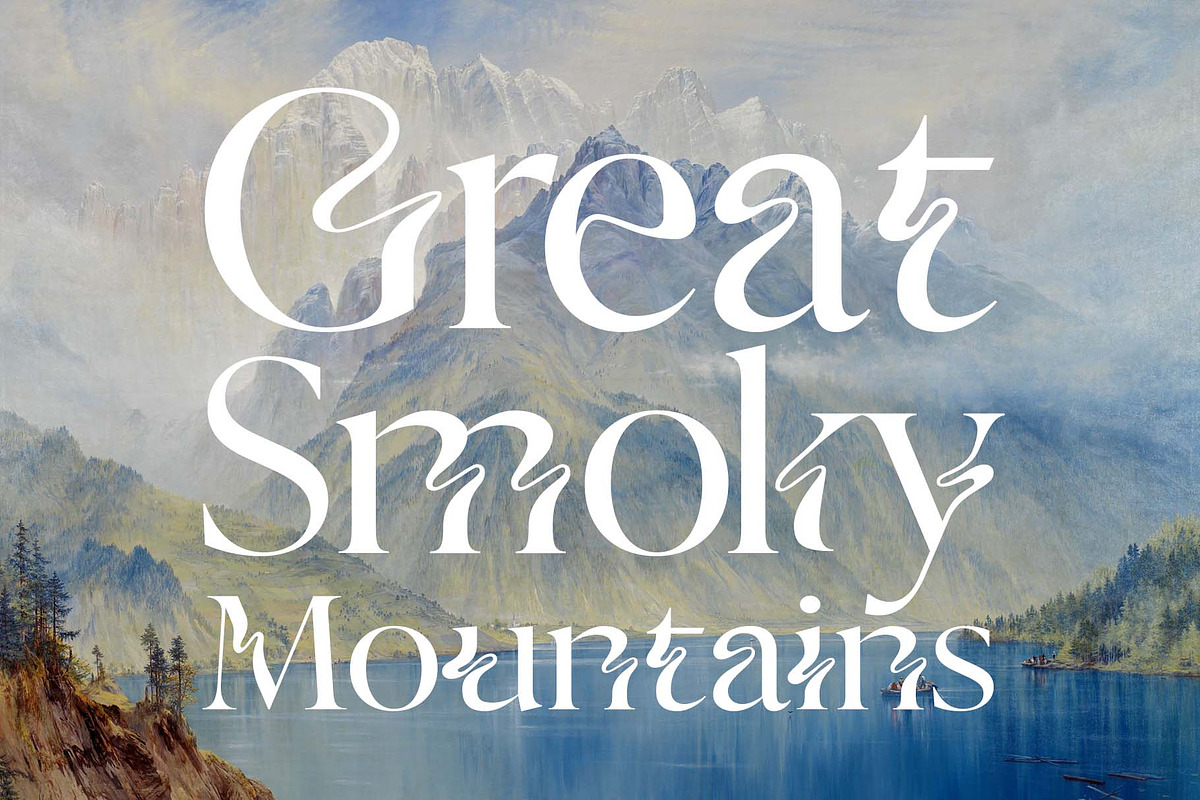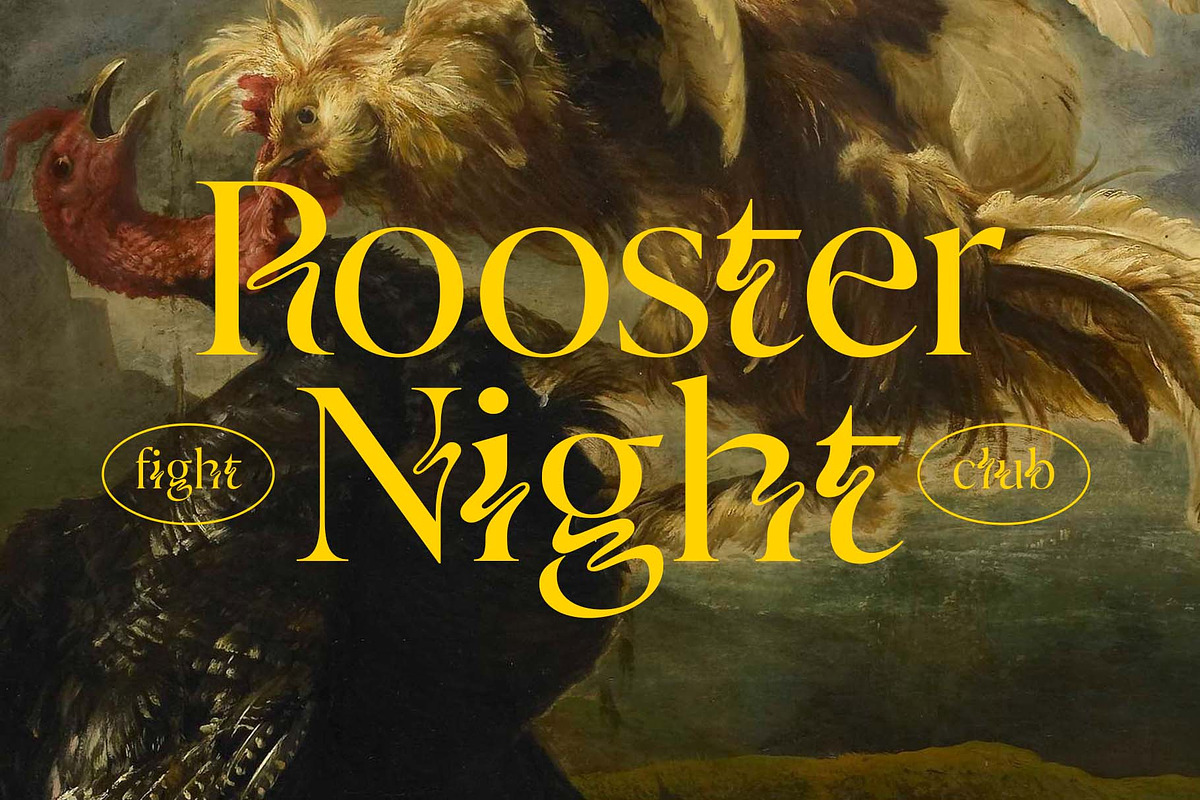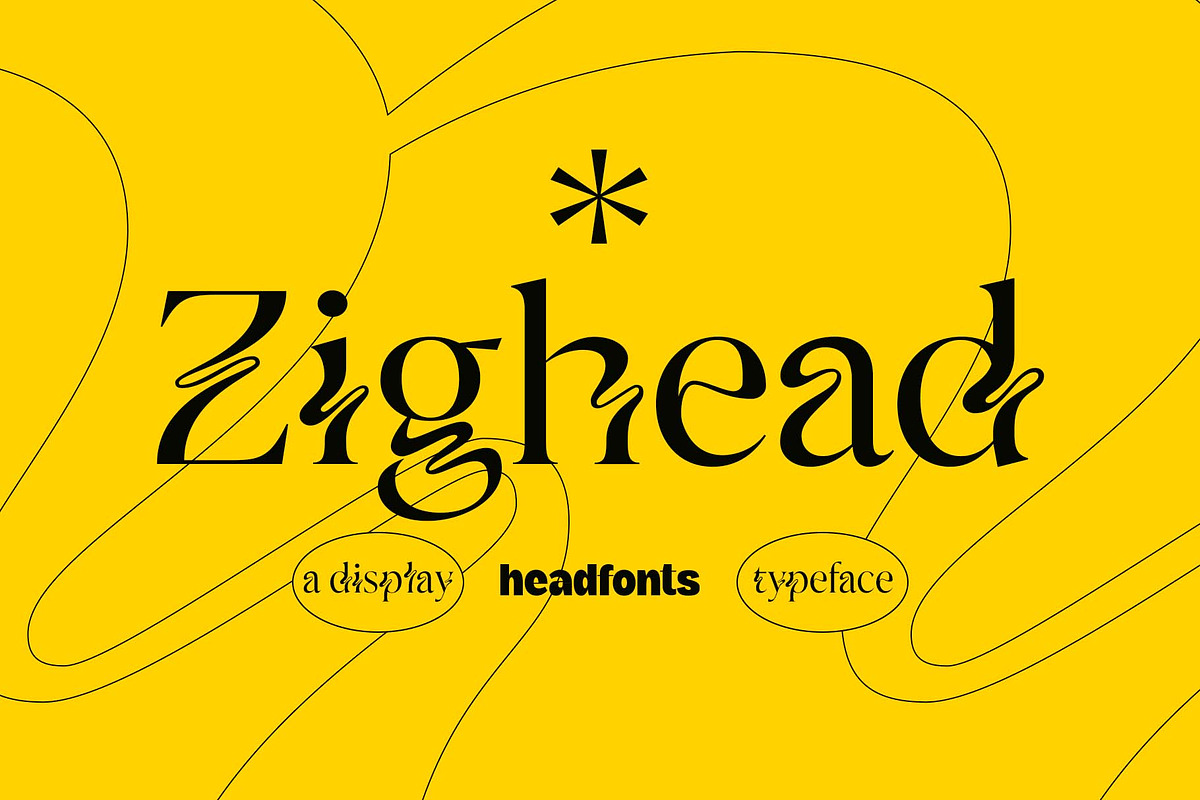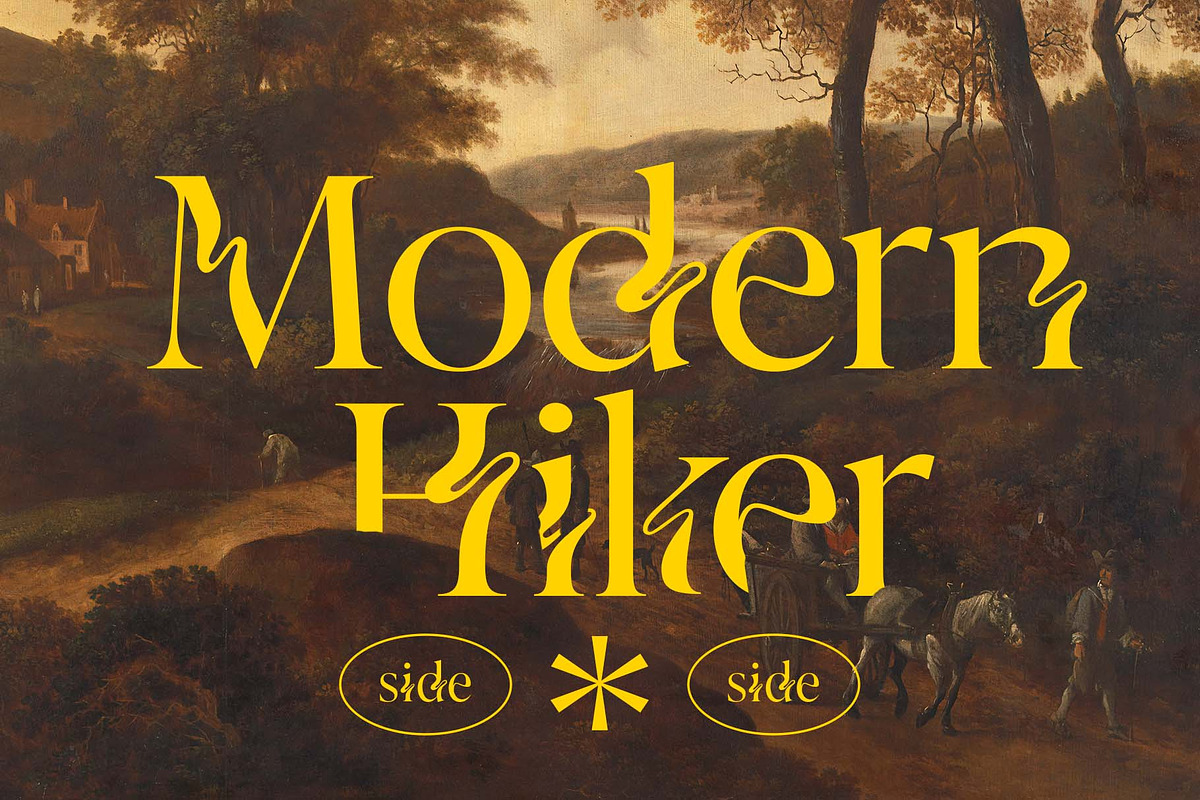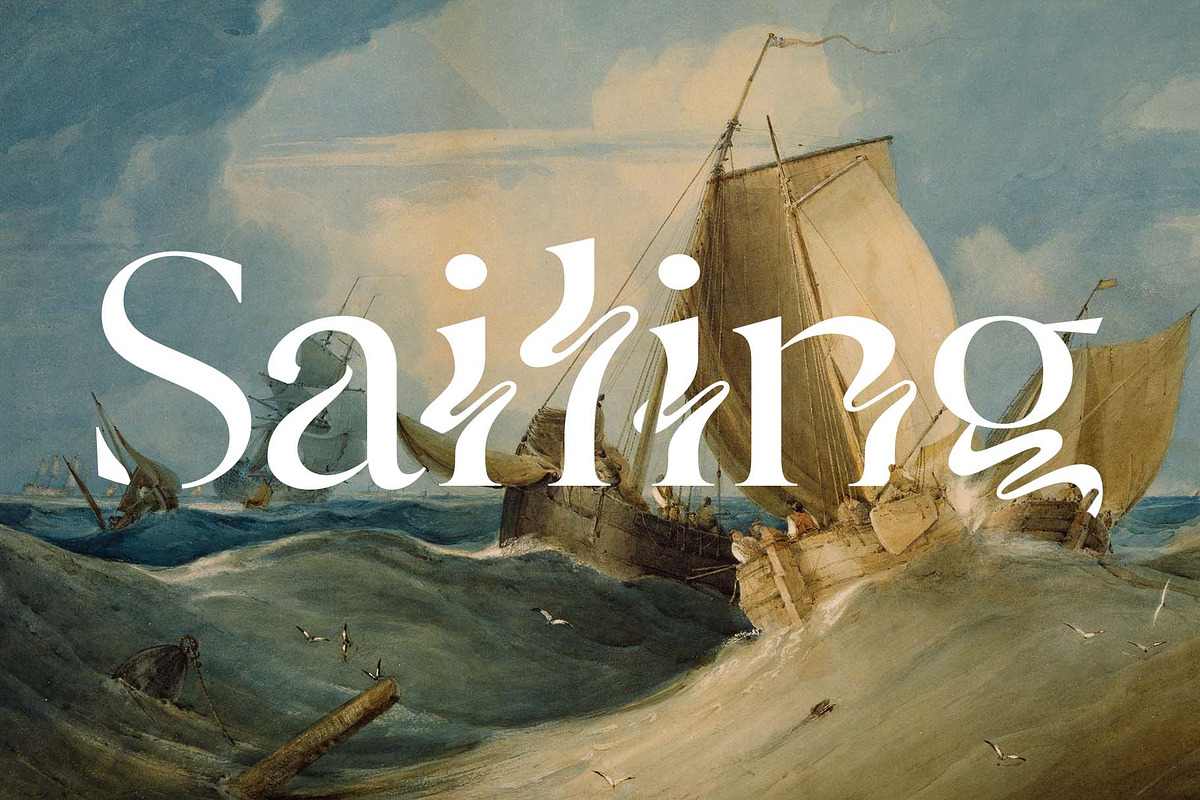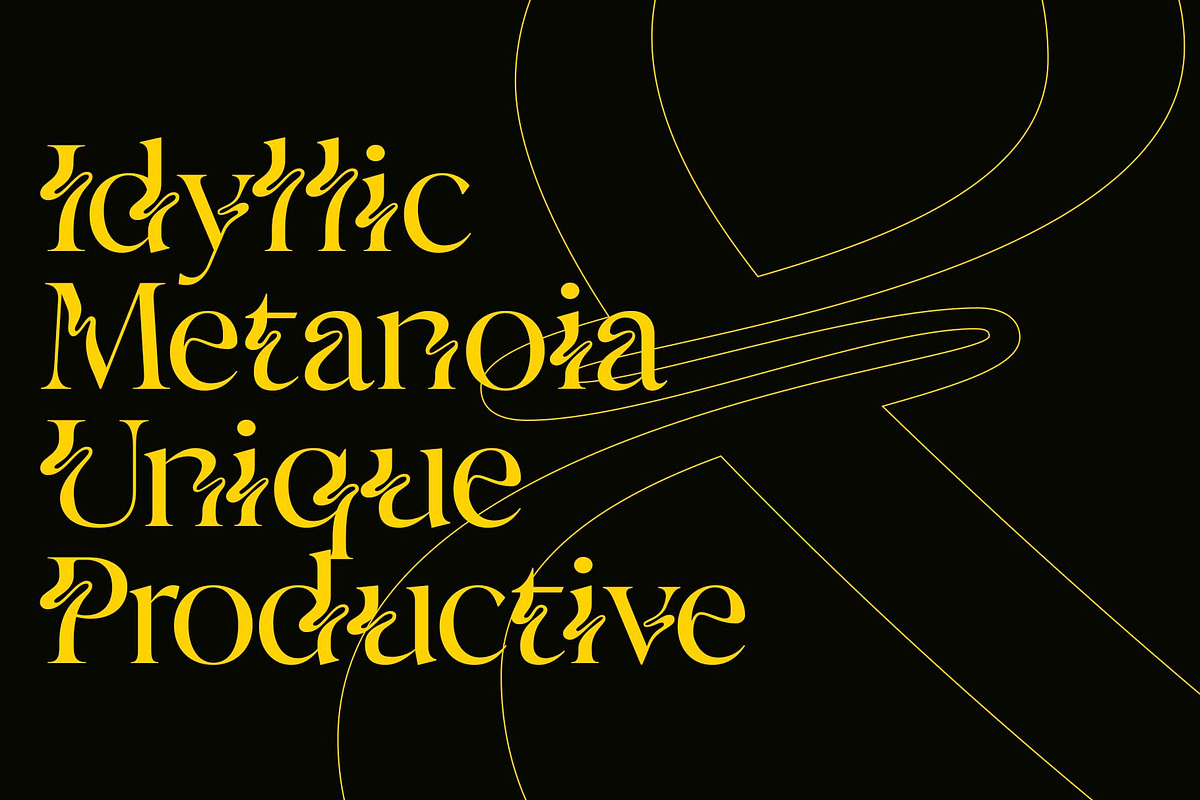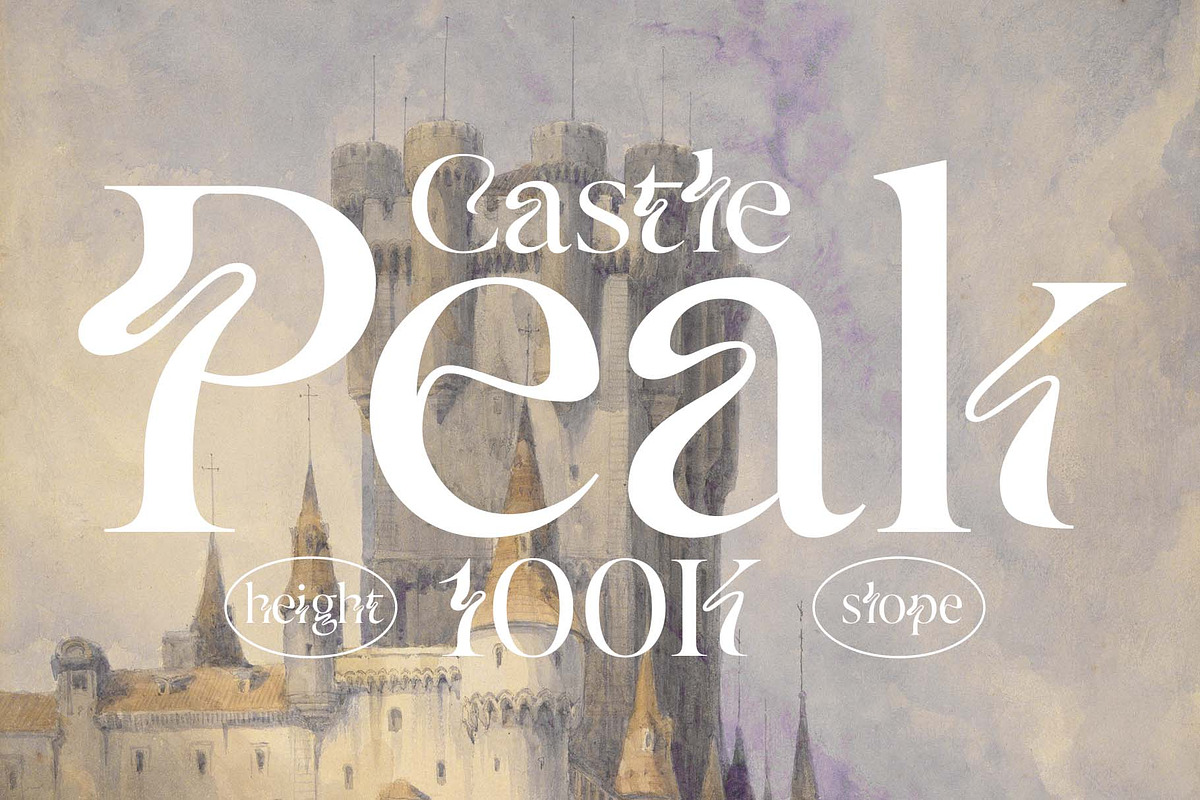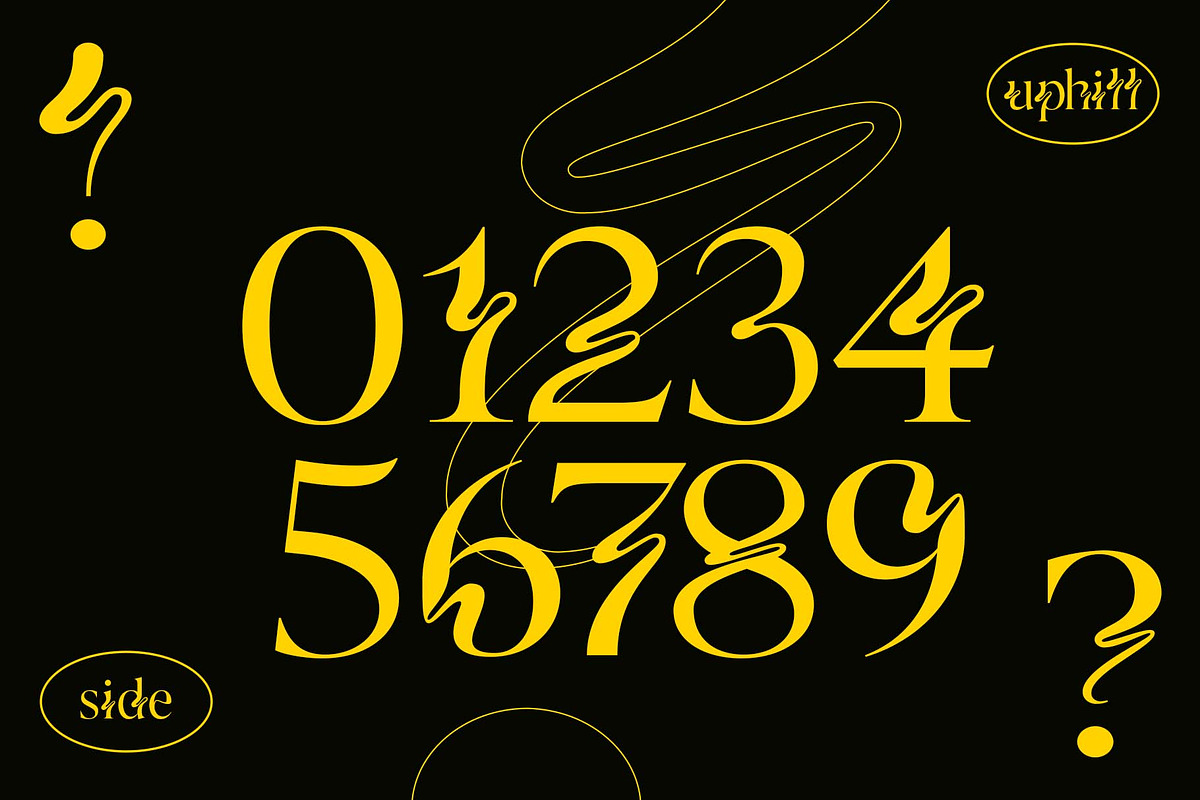
Zighead Display Font
Headfonts is happy to present a new display font, named Zighead. This decorative font features strong and unique serif characters that flow like a river of ink. Being a combination of sharp points and smooth curves, Zighead is interesting yet playful, providing that zing you are looking for. Zighead is an uppercase and lowercase font with standard Latin script support, numerals, and punctuation. This decorative font for sure will stand out, with its highly stylized, unique glyphs that are perfect for absorbing wordmarks and typographic posters.